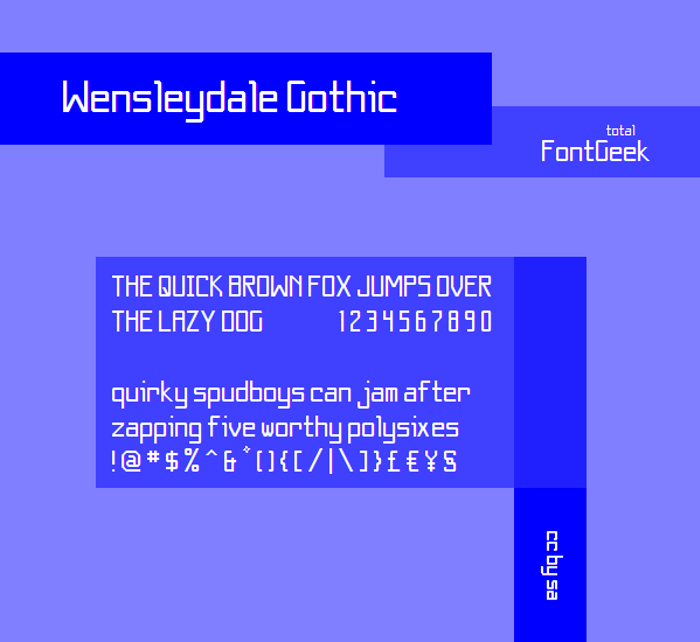
Wensleydale Gothic NBP Font
Another squarish tech-oriented typeface and the display version of Prospero.
13 years ago@MagicalWorldName Well it's a matter of what words rendered the best. Out of all the English names I tried, it was between Wensleydale and Stevenage. I wanted to save Stevenage for a future project, so it's Wensleydale.
Very, very, good font, but I don't like the font's name, ''Wensleydale'' is not a good name for a font like this